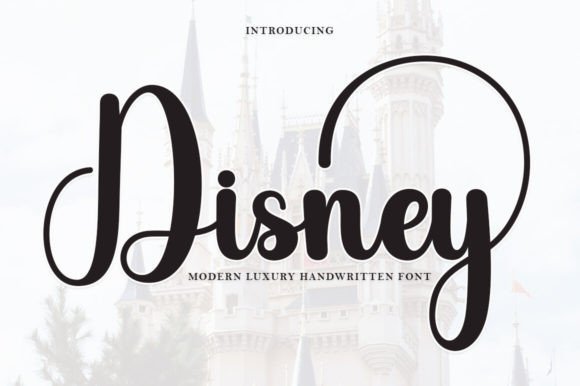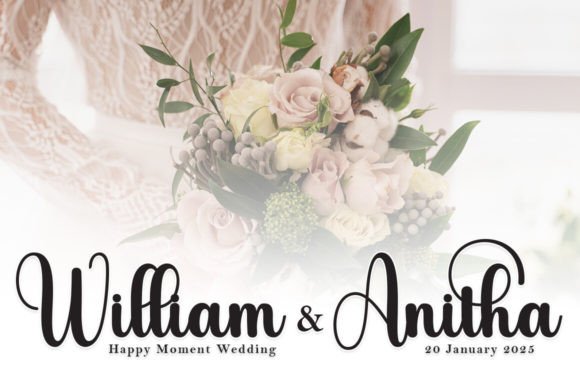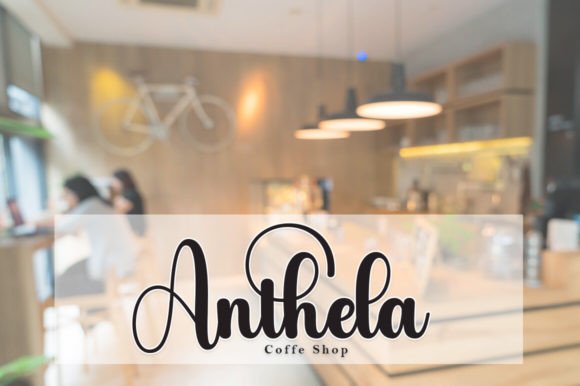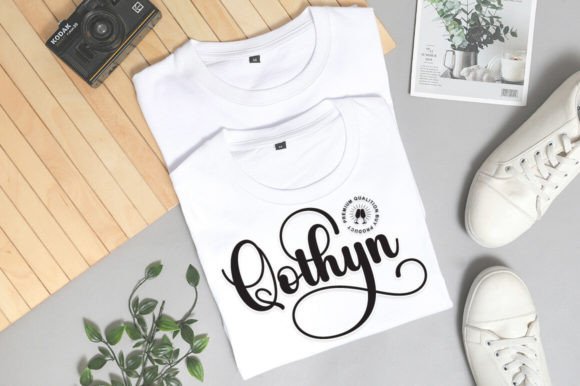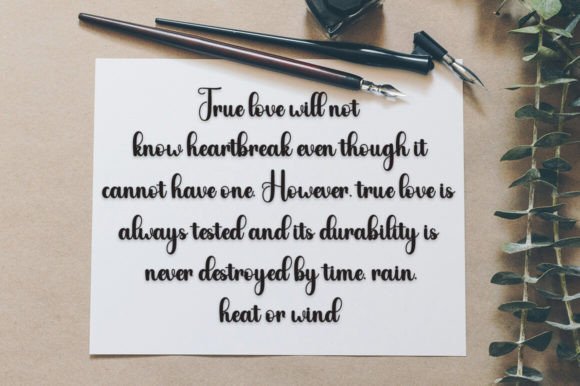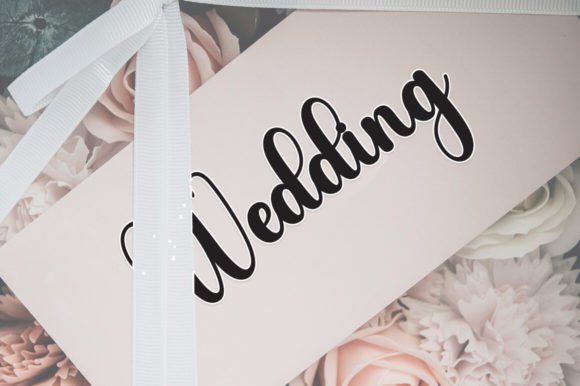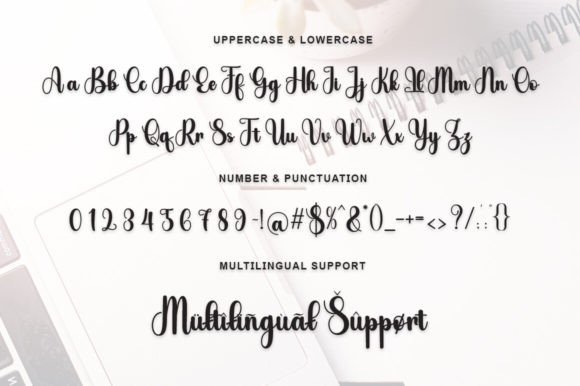
Unlock the Magic of Disney Font
Do you remember the excitement of designing a project, and as you’re about to finalize the layout, you just can’t find the perfect font to tie everything together? You’ve searched through countless options, but nothing seems to capture the essence of your vision. Well, we’ve got some good news for you – we’ve discovered the secret to elevating your designs to new heights: the Disney Font.
This elegant and flowing handwritten font is more than just a pretty face; it’s a game-changer for designers. With its varied baselines, smooth lines, and stunning alternates, the Disney Font is the perfect combination of classic calligraphy and modern flair. Whether you’re creating a wedding invitation, a logo, or a marketing campaign, this font is sure to leave a lasting impression.
Key Features of the Disney Font
- Font Family: The Disney Font is a proprietary font family, but it is often compared to the “Comic Sans” font family.
- Unique Characteristics: The Disney Font is known for its playful, cursive style, with a mix of rounded and pointed letterforms. It features a distinctive “swash” at the end of some letters.
Disney Font Review
When I first laid eyes on the Disney Font, I knew I had to dive in and see what all the fuss was about. As a designer, I’m always on the lookout for unique and engaging typography, and this font certainly delivers. ✨
- The whimsical and playful feel of the font makes it perfect for projects that need a touch of magic.
- The font is highly customizable, allowing users to adjust the size, color, and spacing to suit their needs.
- The Disney Font is highly legible, even at smaller sizes, making it a great choice for large-scale applications.
However, as with any font, there are some limitations to be aware of. ⚠️
- The font is quite busy and may not be the best choice for projects that require a clean and minimalist aesthetic.
- The font’s whimsical feel can sometimes make it difficult to read, particularly for users with visual impairments.
Overall, I’m impressed with the Disney Font and its unique charm. While it may not be the best choice for every project, it’s definitely a great option for those looking to add a touch of magic to their design.
The Disney Font is perfect for:
- Creating custom logos or branding for Disney-themed events or businesses.
- Designing invitations, party decorations, or other materials for Disney-themed parties.
- Adding a touch of whimsy to presentations, documents, or social media posts.
Disney Font Creative Projects
Project 1: Disney Quote Art
Transform your favorite Disney quotes into stunning art pieces using the Disney Font.
Project 2: Disney-themed Party Invitations
Create magical party invitations using the Disney Font to set the tone for a memorable celebration.